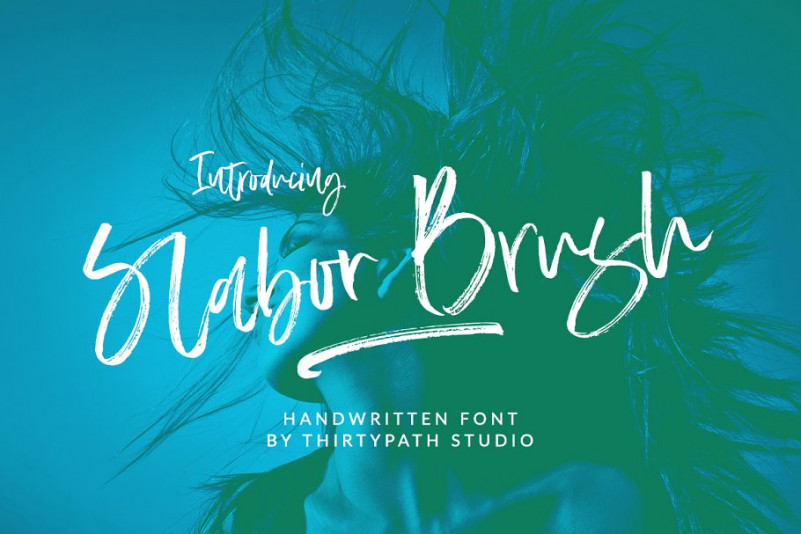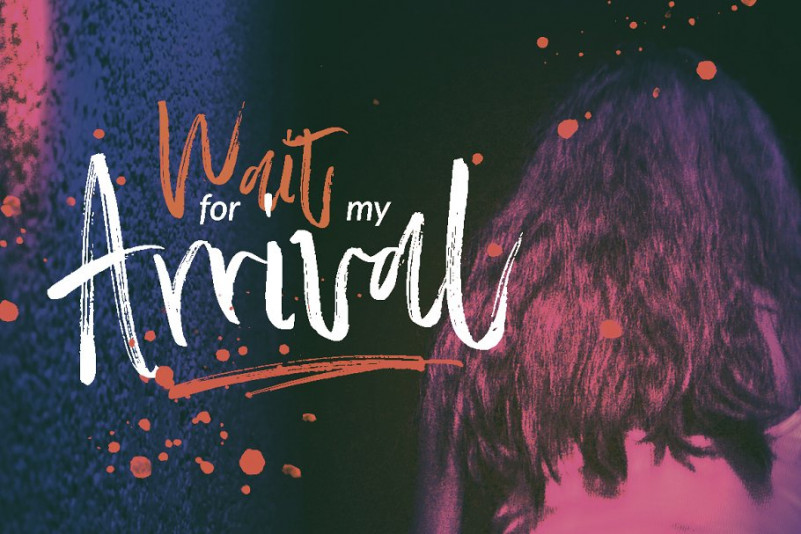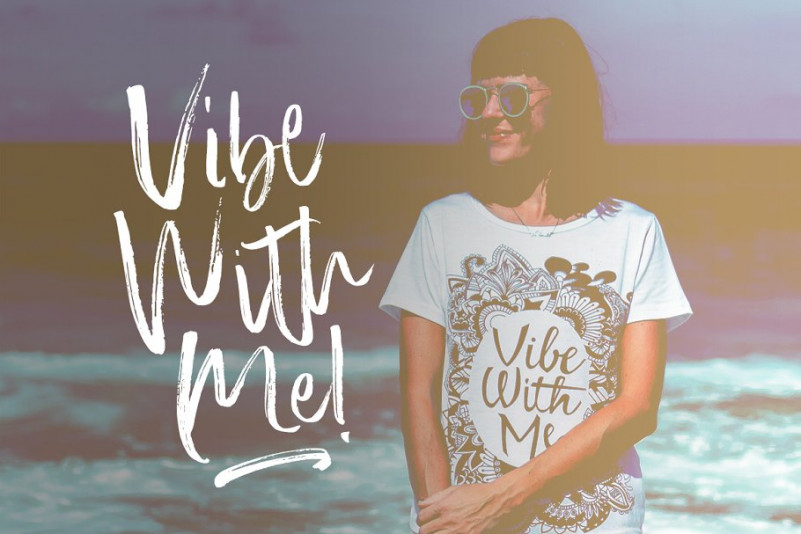
Slabor Font
Hi all…!! Slabor Brush Font is a hand brush products with extras. The style of handwriting and irregular but still elegant, and you will enjoy to use this font style.
Slabor Brush Font has standard ligatures included – to give the font a more natural, scripted look when you have any double letters in your design. It also has multilingual support with accented characters for international users.